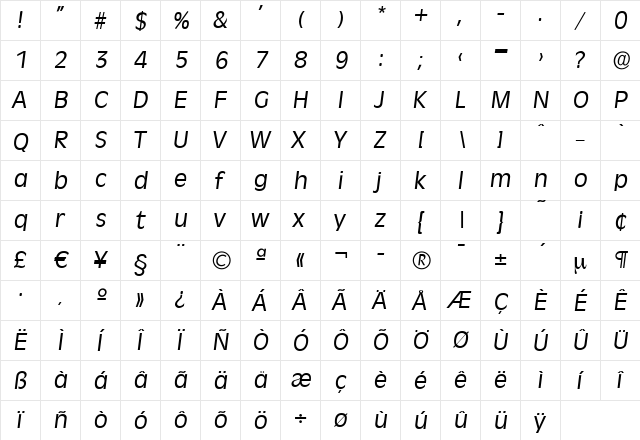
ArthurBecker Italic
Design Context for ArthurBecker Typeface
ArthurBecker takes a measured approach to typography — its balanced proportions and neutral character make it a reliable workhorse for both digital and print work. Its italic angle brings a sense of urgency and motion to the letterforms.
Pro Tip: Use ArthurBecker for emphasis, pull quotes, and subheadings where its slanted energy can add rhythm to the layout.